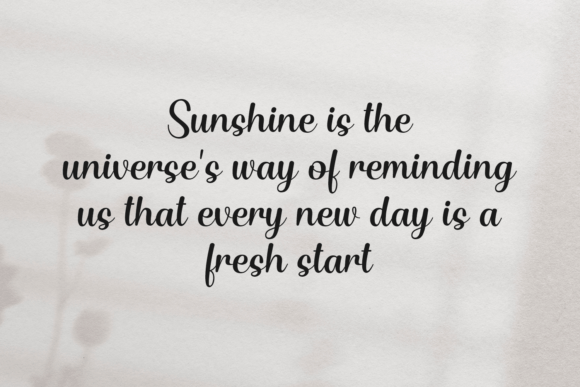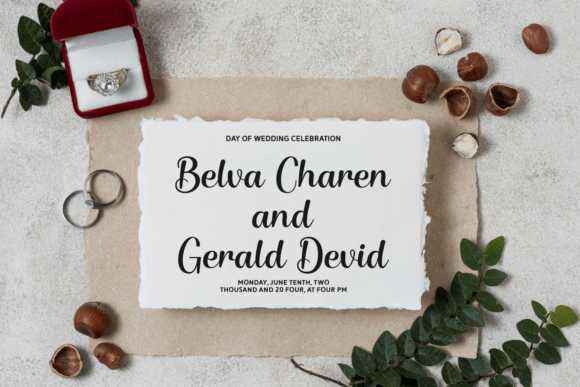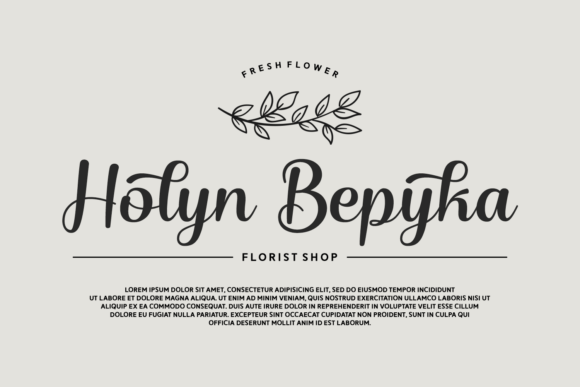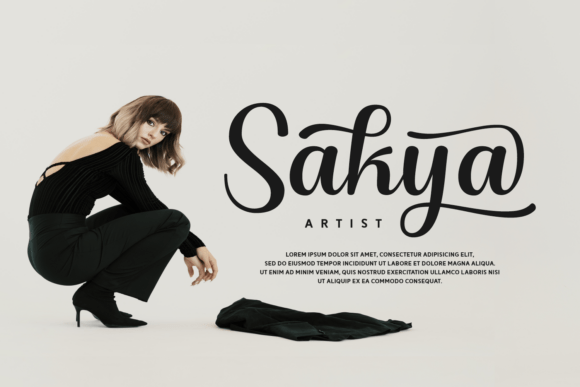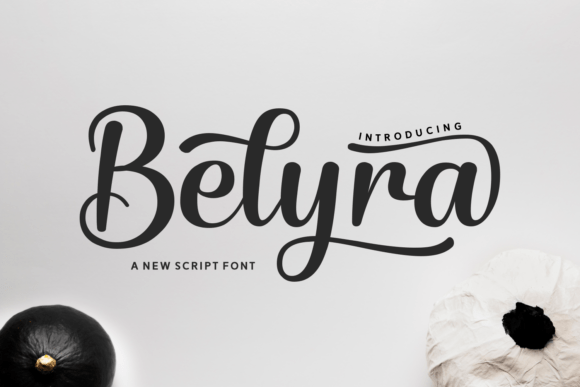
Belyra Font: Elevate Your Designs with Modern Calligraphic Elegance
In the world of typography, few fonts manage to strike a balance between elegance, expressiveness, and readability. Belyra Font is one such exceptional typeface that brings a modern calligraphic script to the forefront, designed specifically for display work that demands attention and exudes sophistication. With its unique blend of traditional calligraphy and contemporary design elements, Belyra is poised to become a favorite among designers, crafters, and anyone looking to add a touch of warmth and polish to their projects.
Characteristics of Belyra Font
Belyra’s design is characterized by a generous x-height and confident stroke contrast, which together create a smooth, brush-pen rhythm. This rhythm not only makes the text easy to read but also ensures it remains unmistakably decorative. The font features rounded terminals, teardrop dots, and looped ascenders, all of which contribute to a friendly, feminine energy. The long descenders, entry strokes, and sweeping exit swashes link characters into flowing word shapes, making Belyra perfect for creating visually appealing and harmonious text.
Unique Features and Glyphs
One of the standout features of Belyra is its attention to detail in the design of each character. The capital B opens with a lively loop, the l climbs into a soft oval, and the y and r curl back with balanced counterforms. The final a lands in an elegant tail that can extend for underlines, offering a versatile and dynamic look. The font also includes precision spacing, making it ideal for headlines and short texts at large sizes.
To further enhance its usability and aesthetic appeal, Belyra comes with a range of alternates, ligatures, and stylistic swashes. These features allow for effortless logo lockups and provide designers with the flexibility to tailor the font to their specific needs. Whether it’s for branding, packaging, invitations, social posts, merchandise, or signage, Belyra offers the perfect blend of handmade charm and polished sophistication.
Belyra Font includes PUA (Private Use Area) encoding, making all special characters and decorative elements easily accessible. This feature is particularly beneficial for designers who want to incorporate unique and stylistic elements into their work without the hassle of navigating complex character maps. With PUA encoding, you can directly access and use the extended glyphs and swashes, streamlining your design process.
Ideal Applications for Belyra Font
Belyra’s versatility makes it suitable for a wide range of applications. Here are some of the ideal uses for this beautiful font:
• Branding: Use Belyra to create memorable and elegant brand names that stand out.
• Packaging: Add a touch of sophistication and charm to product packaging.
• Invitations: Design beautiful and eye-catching invitations for weddings, parties, and formal events.
• Social Posts: Elevate your social media posts with stylish and engaging text.
• Merchandise: Create appealing and unique merchandise, such as t-shirts, mugs, and posters.
• Signage: Use Belyra for signage that requires a friendly yet polished look.
Belyra Font is a stunning example of modern calligraphic script, designed to bring expressive display work to life. Its elegant design, combined with its readability and versatility, makes it an invaluable addition to any designer’s toolkit. With its range of features, including alternates, ligatures, stylistic swashes, and PUA encoding, Belyra offers endless possibilities for creative expression. Whether you’re a professional designer or a crafting enthusiast, Belyra is sure to inspire and enhance your projects with its warmth, polish, and handmade charm.
Incorporate Belyra Font into your designs today and experience the perfect blend of modern elegance and traditional calligraphy. Elevate your branding, packaging, invitations, social posts, merchandise, and signage with a font that truly understands the value of beauty and readability.